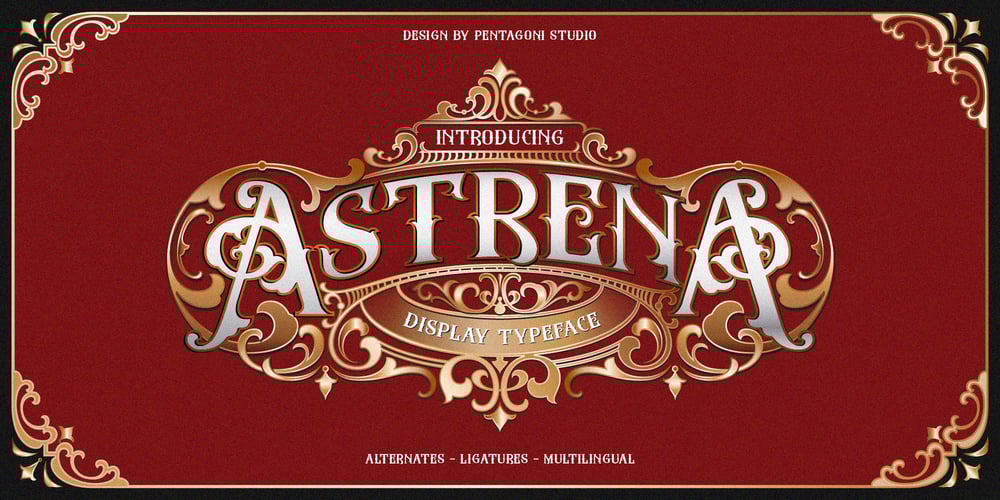
Astrena
Astrena font
Astrena Font Family was designed by Burhan Adiatma and published by pentagonistudio. Astrena contains 1 styles and family package options. Astrena Is An Victorian Vintage Display Typeface Inspired By Nostalgic Characters.SOFTWARE REQUIREMENTS :Fonts and alternate : No special software required they may be used in any basic program /website apps that allows standard fonts That’s it folks! You can go ahead and get cracking :)Follow My Shop For Upcoming Updates Including Additional Glyphs And Language Support. And Please Message Me If You Want Your Language Included or If There Are Any Features or Glyph Requests, Feel Free to Send me A Message. Have a Good Day !